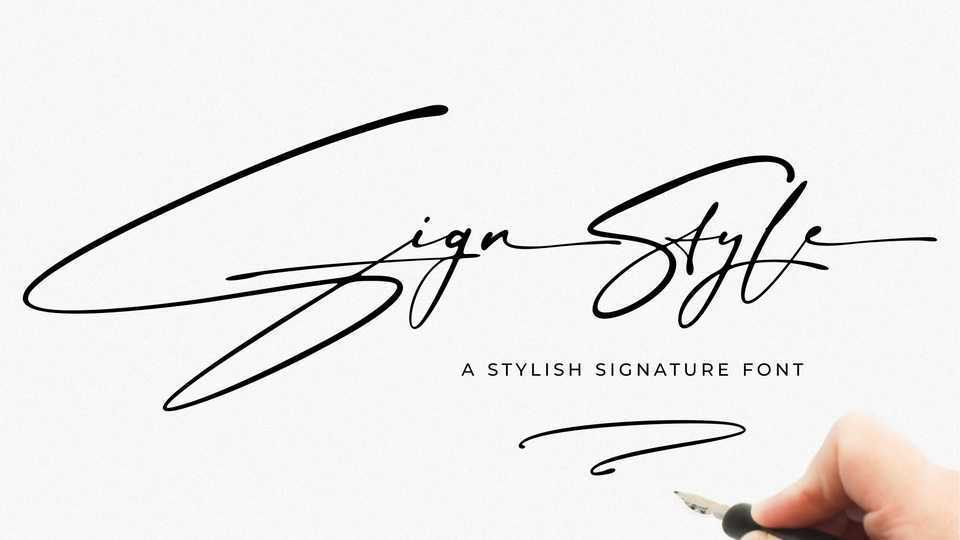
Sign Style Elegant Signature Font › Fontesk
Download Sign Style font, an elegant signature typeface, created by a passionate designer. Sign Style font combines a personal, hand-drawn feel with modern design, making it perfect for signature logos, branding, packaging, and advertising.